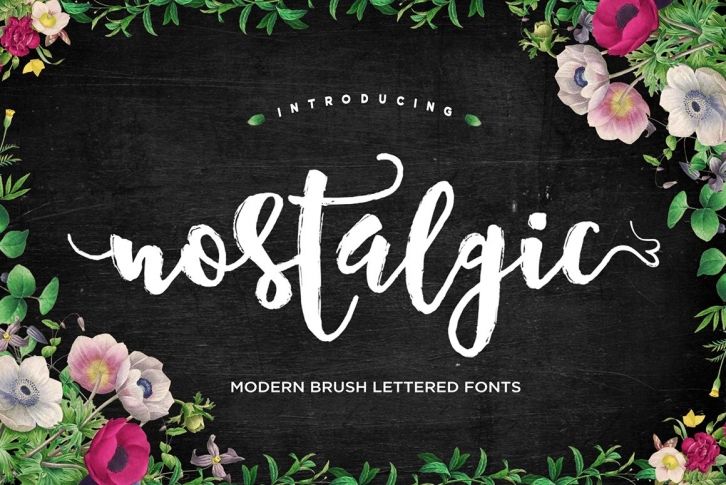
Nostalgic Script is a modern brush font, organic, dynamic and energetic sytle.Can used for various purposes. such as the title, signature, letterhead, signage, labels, newsletters, posters, logo, correspondence, wedding invitations, badges, etc.
Nostalgic Script features 315 Glyphs, 143 alternate characters, including initial and terminal letters, alternates, ligatures and International support for most Western Languages is included.